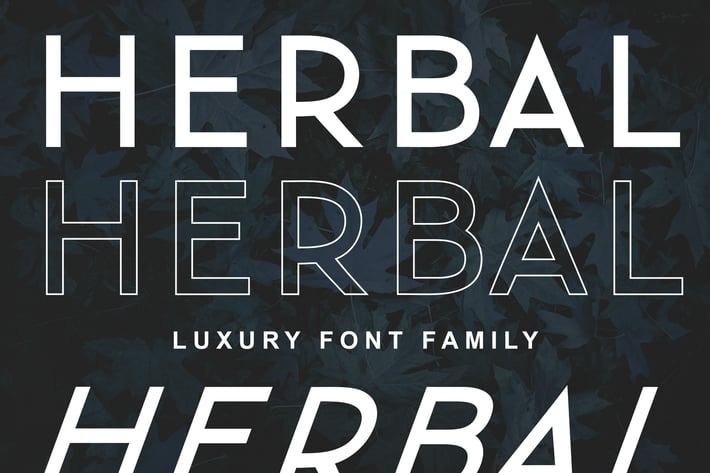
Herbal Font Family
Herbal is elegant sans font family. Herbal has 5 fonts : regular, bold, outline, rounded, and italic. Herbal font family will appeal to a wide range of crafty ideas, from letterheads and titles, to stationery.